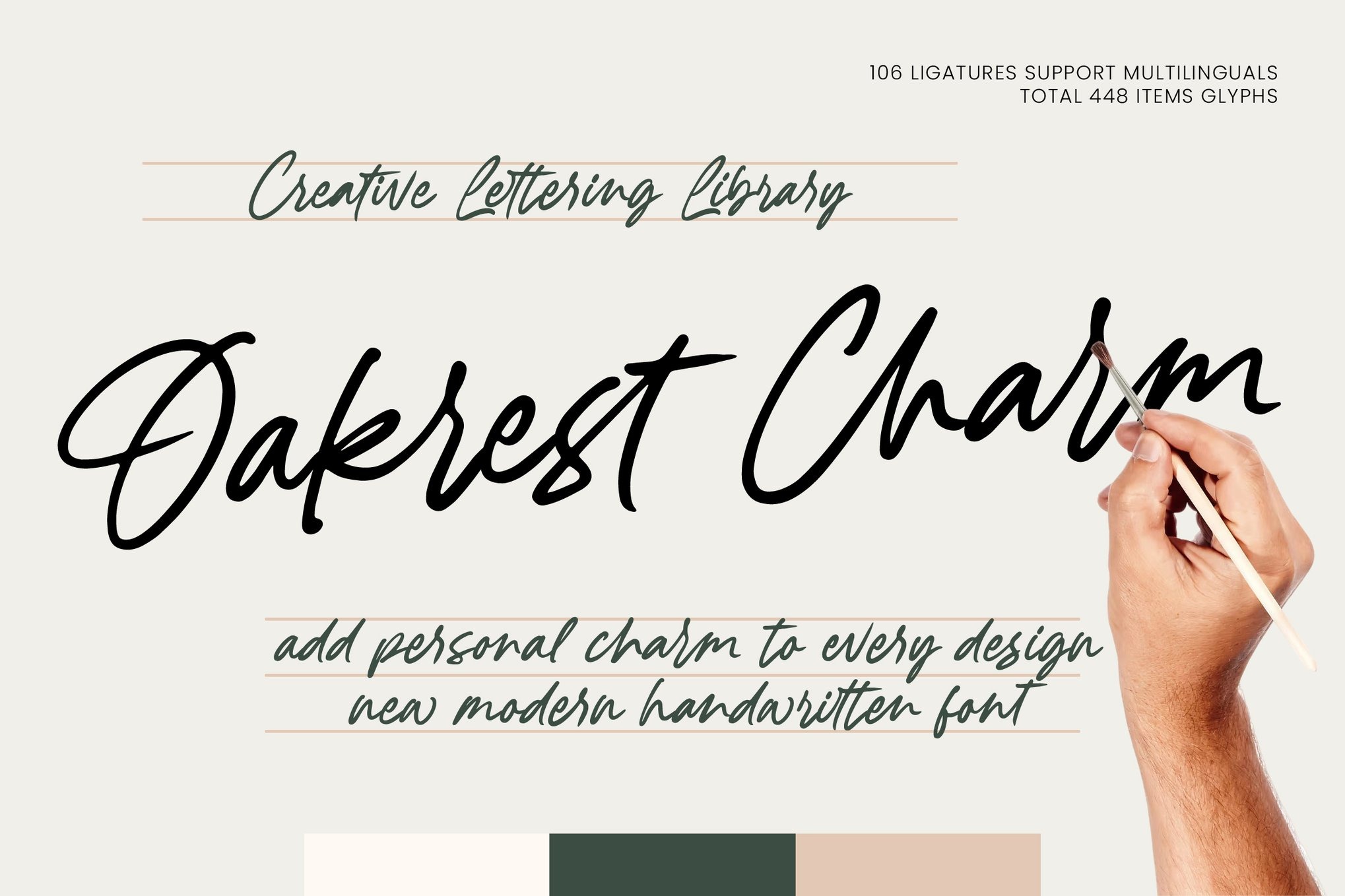
Oakrest Charm – Modern Handwritten Font
Oakrest Charm – Modern Handwritten Font is a clean and thoughtfully built typeface that works seamlessly for both professional branding and everyday creative uses. Oakrest Charm – Modern Handwritten Font Elevate your design aesthetic with the fluid elegance of Oakrest Charm – Modern Handwritten Font. This typeface captures a perfect balance between organic strokes and contemporary sophistication, offering an authentic hand-lettered feel that breathes life into digital canvases. Its natural flow and expressive personality make it an essential tool for designers seeking to add a human touch to their work while maintaining a polished, professional look that commands attention.
Discover the ultimate versatility required for high-end branding and modern creative projects. Oakrest Charm – Modern Handwritten Font is perfect for luxury packaging, elegant wedding stationery, sophisticated social media graphics, and impactful logos. Whether you are crafting editorial layouts or boutique signage, this font provides the artistic flair needed to distinguish your brand in a crowded marketplace and provide a premium aesthetic.
Ligature
Uppercase and lowercase
Numbering and Punctuation